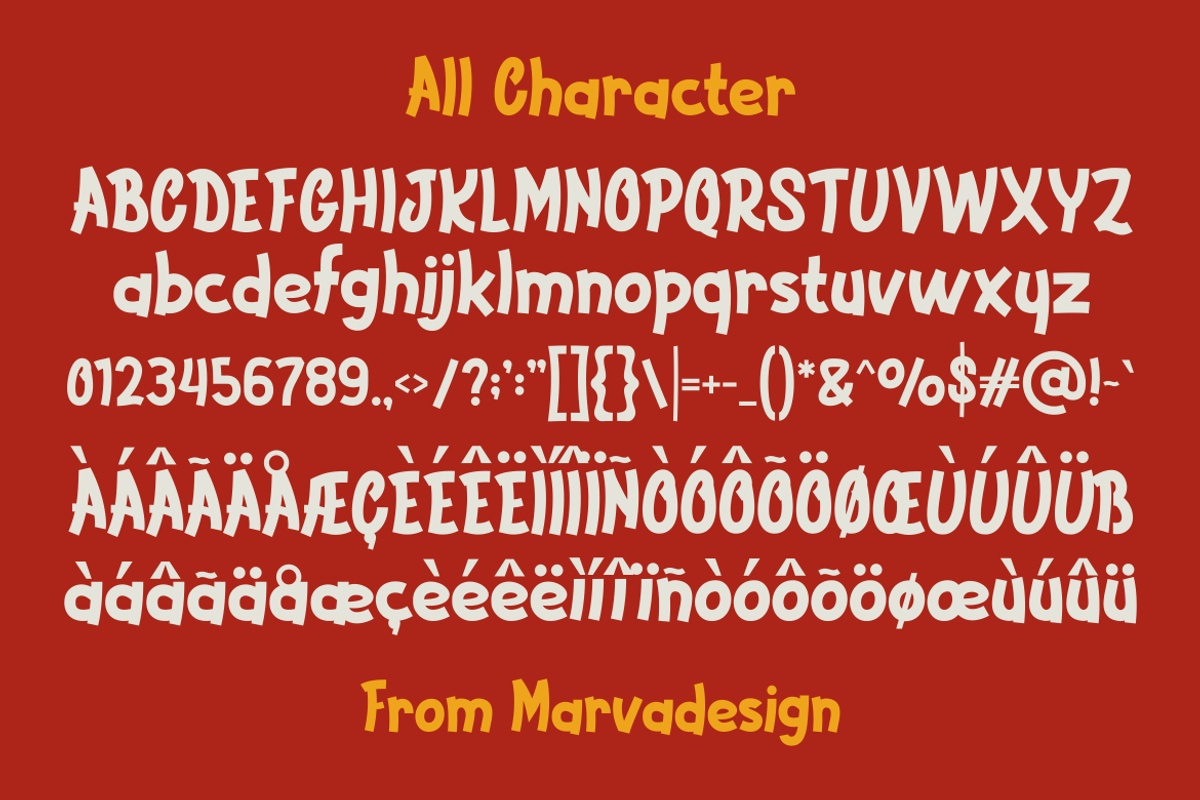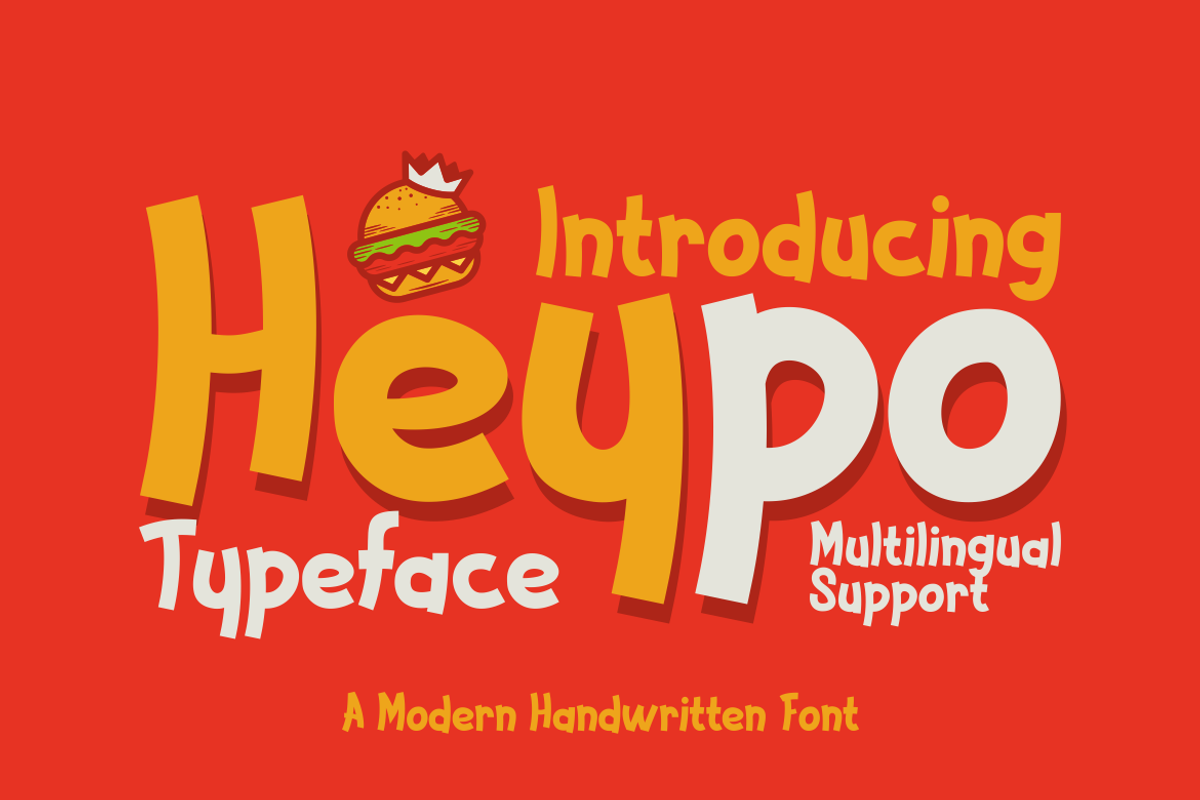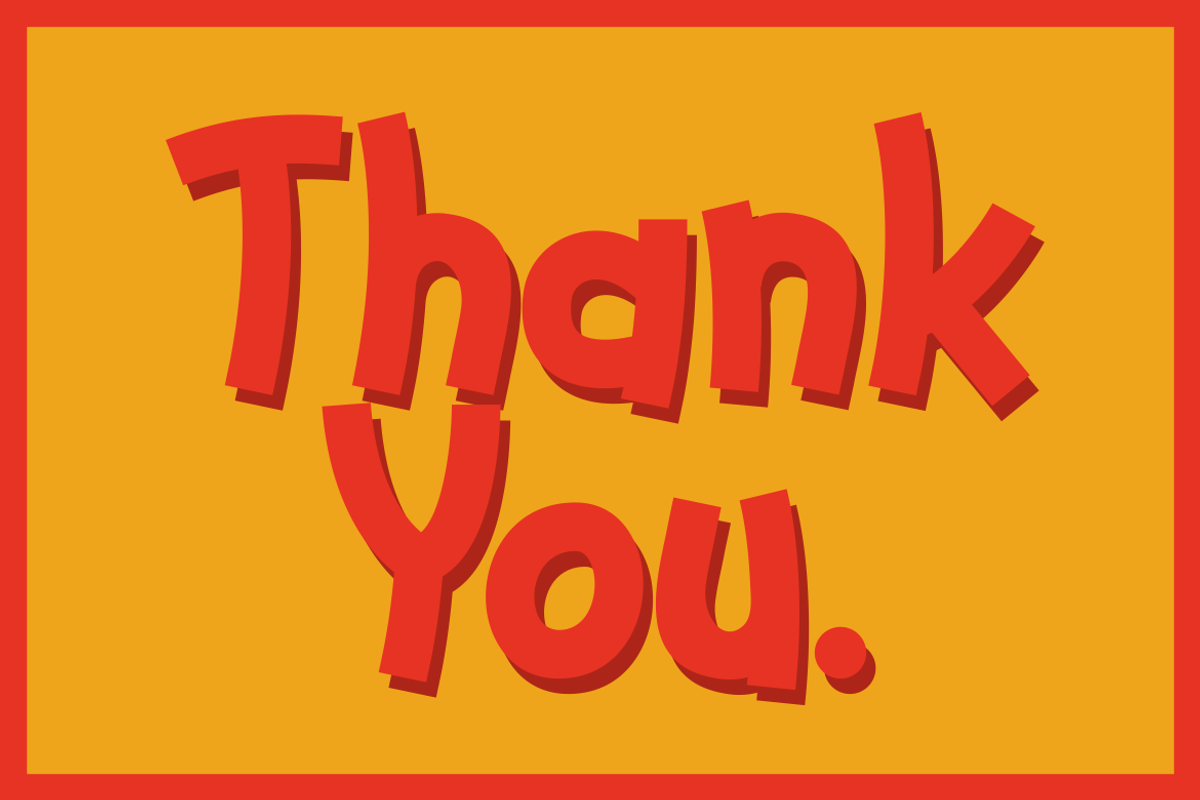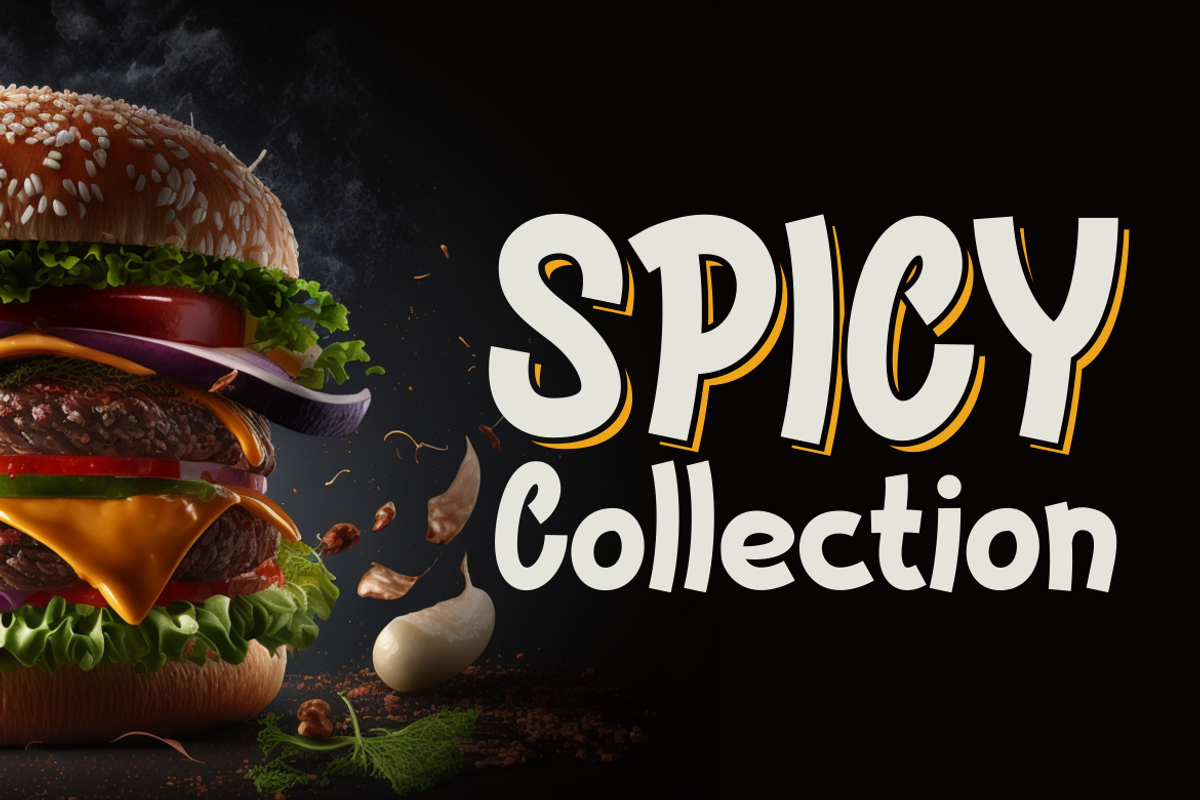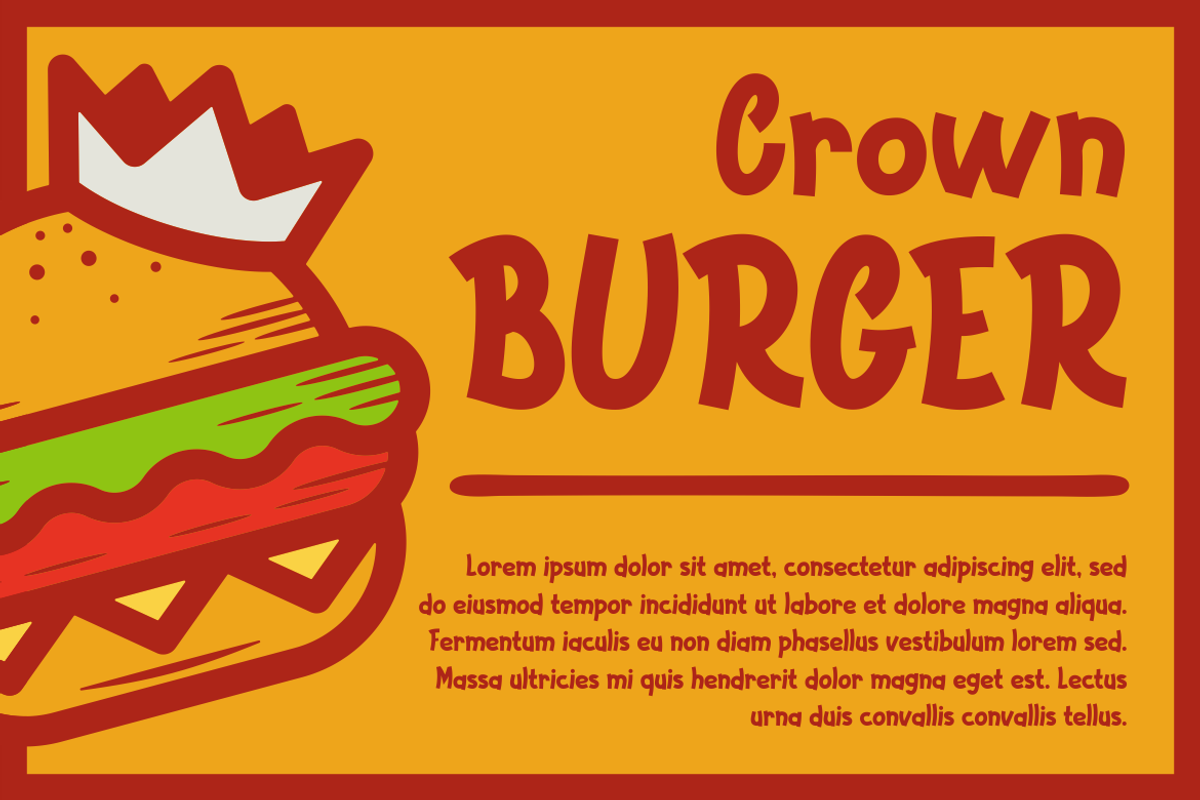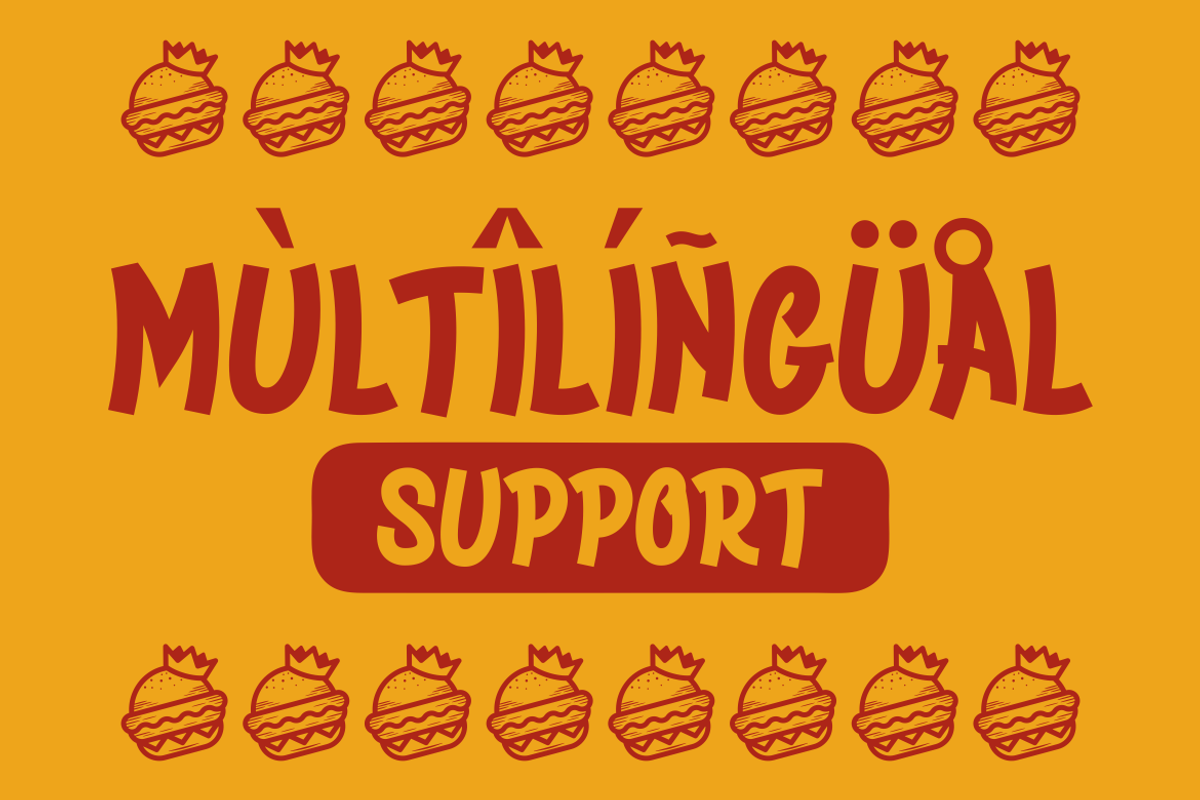
Heypo - A Modern Handwritten Font
Introducing our new product Heypo Font - Modern Font Heypo Font*** - Modern Font is a bold and authentic display font. The font is suitable for any branding project like logo,Template Design, Product and many more. outstanding in a wide range of contexts.